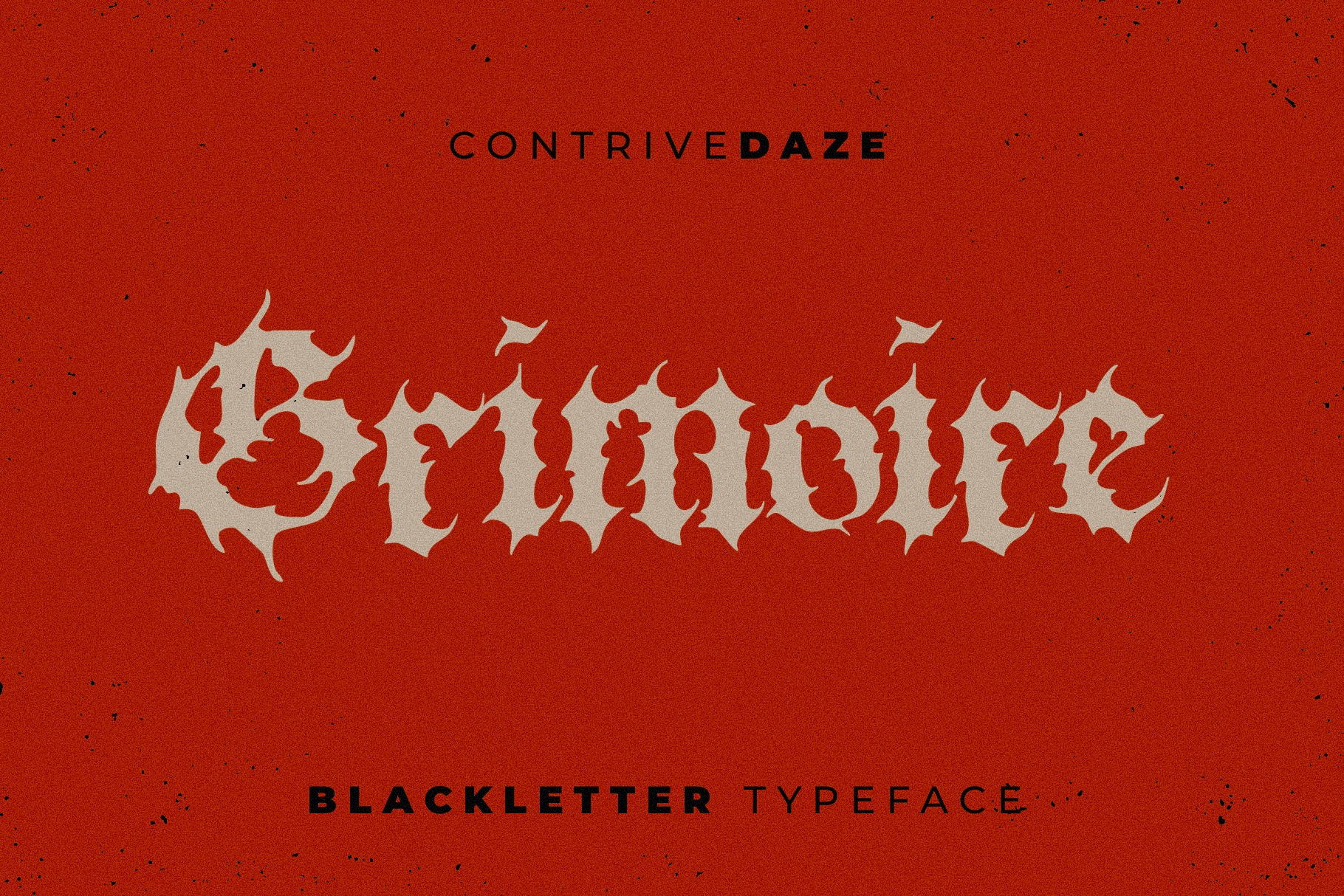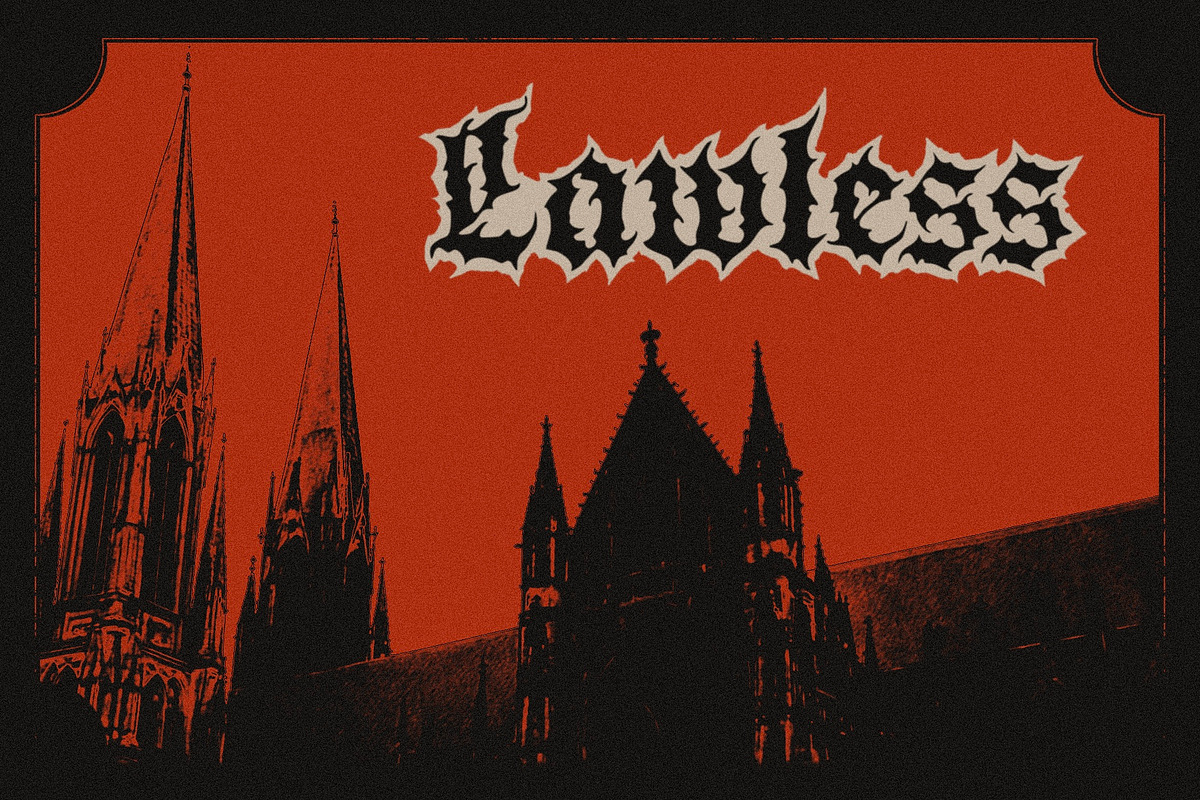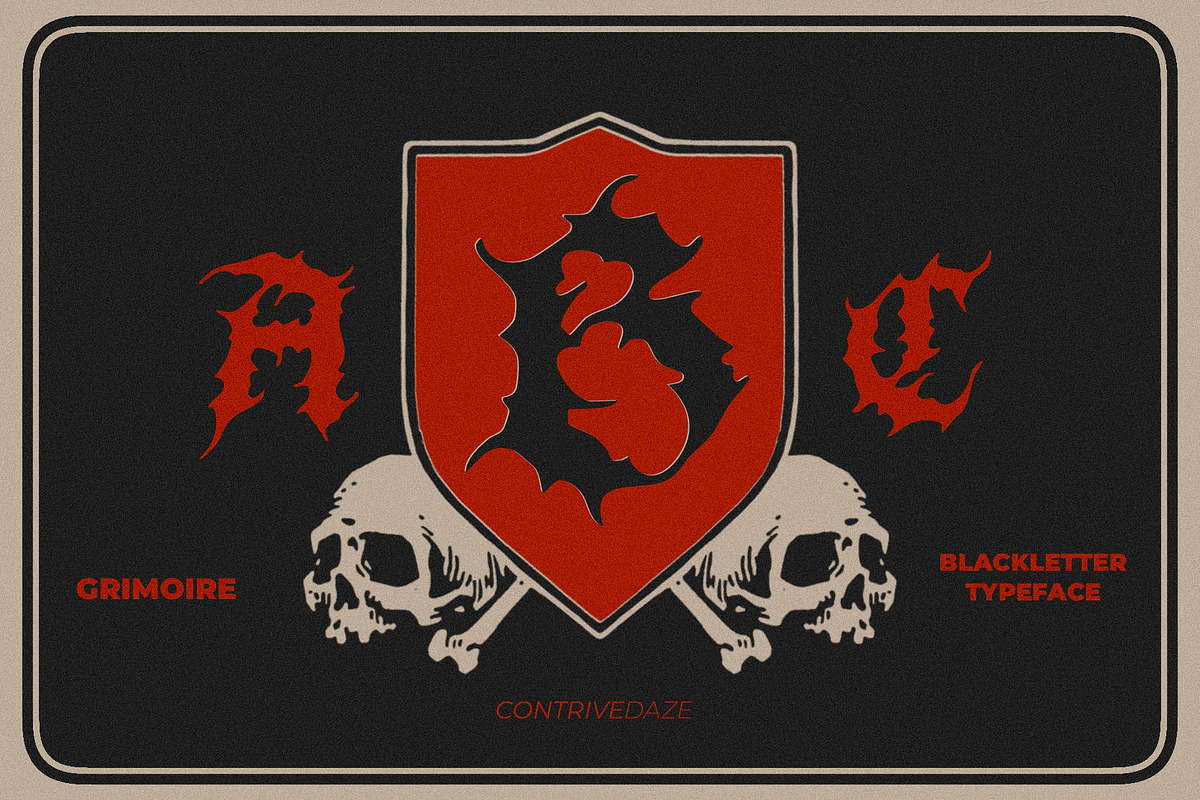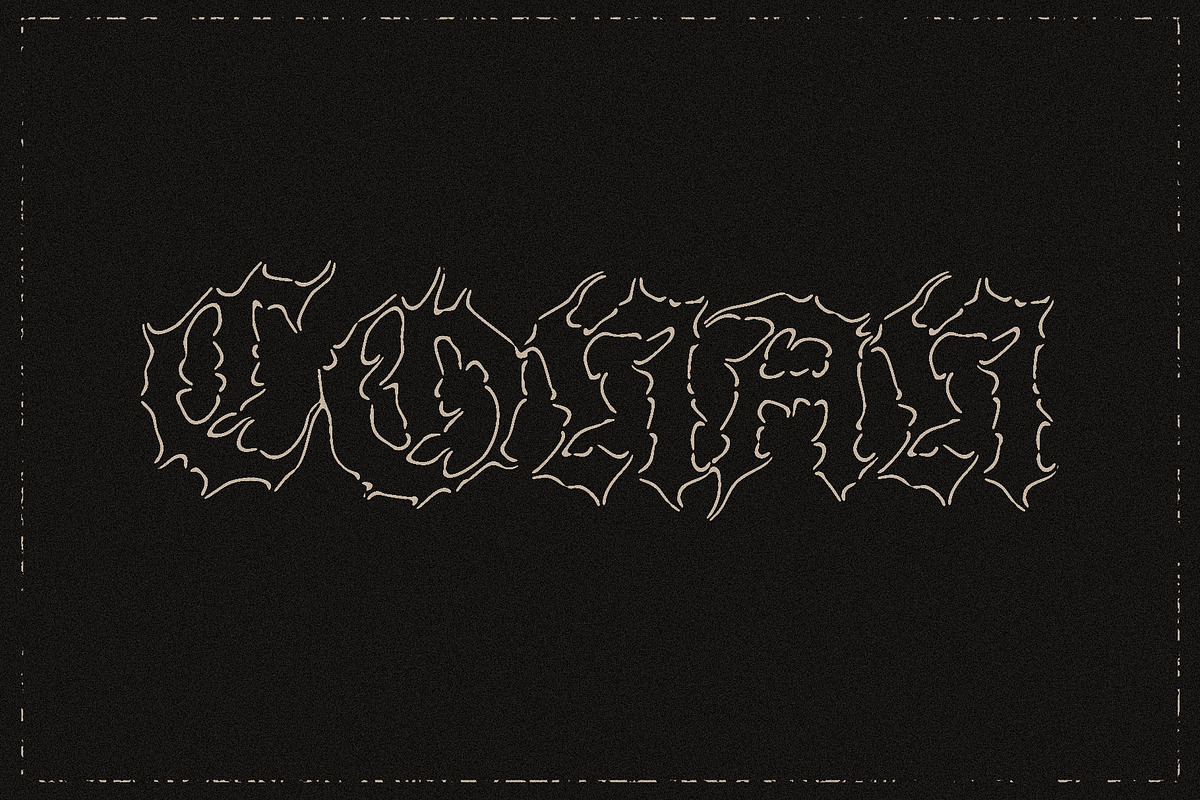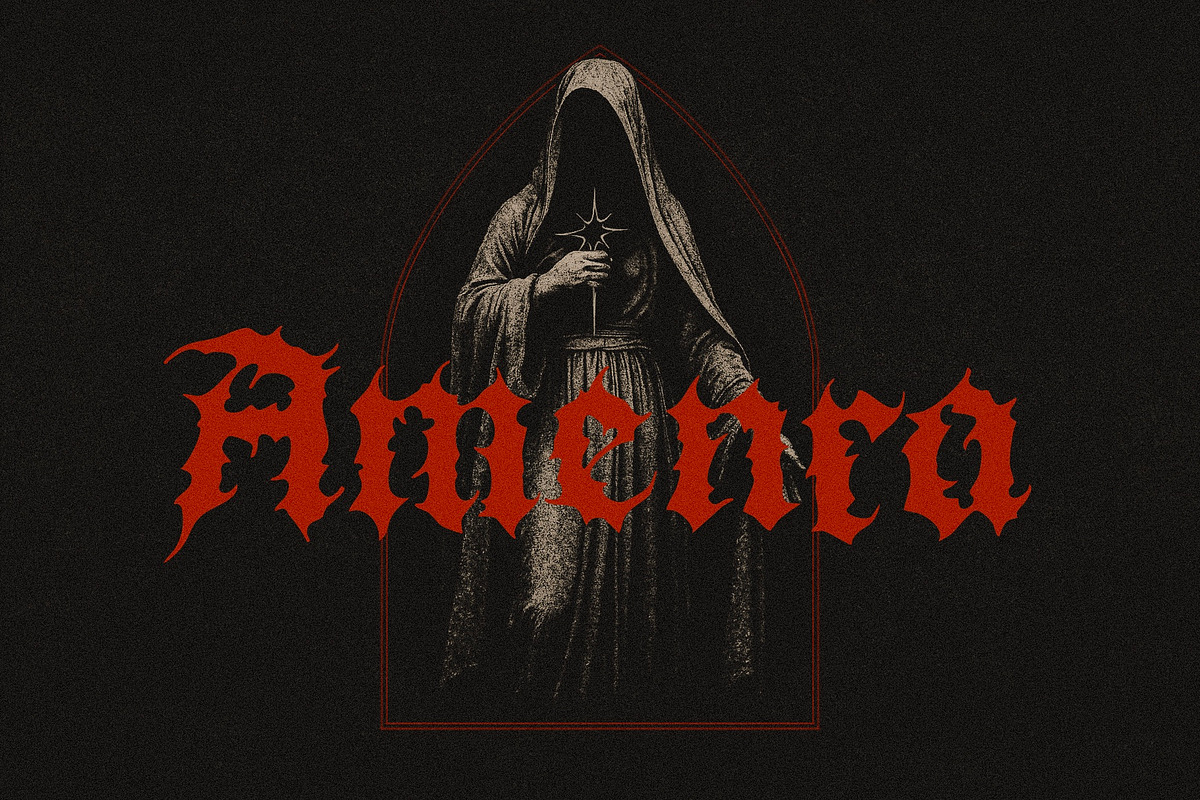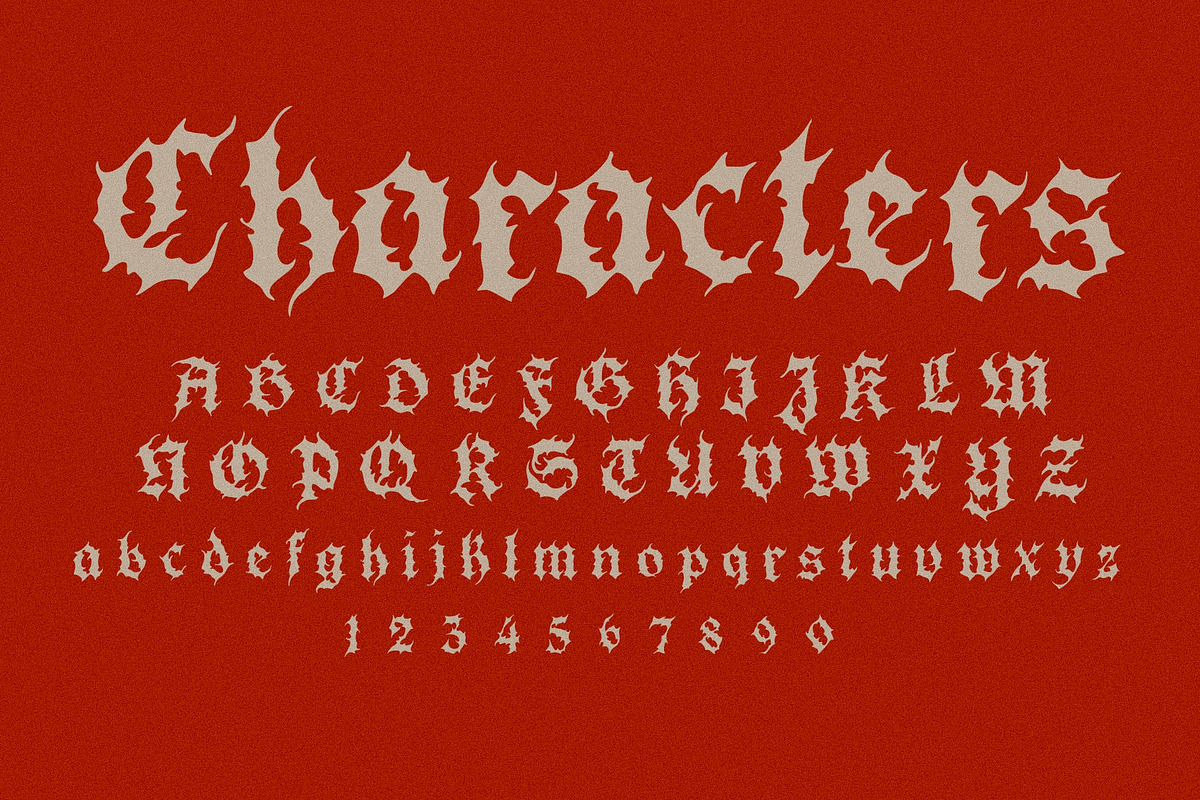
GRIMOIRE BLACKLETTER TYPEFACE
Grimoire is a gothic blackletter typeface rooted in Fraktur tradition, reimagined with raw intensity and sharp defiance. Its jagged forms and high-contrast strokes give it a striking, unrelenting presence—perfect for designs that demand bold expression with a hint of menace.
Ideal for band merch, album art, posters, or branding that leans into the dark and unconventional, Grimoire is built to dominate the page and leave a mark that lingers